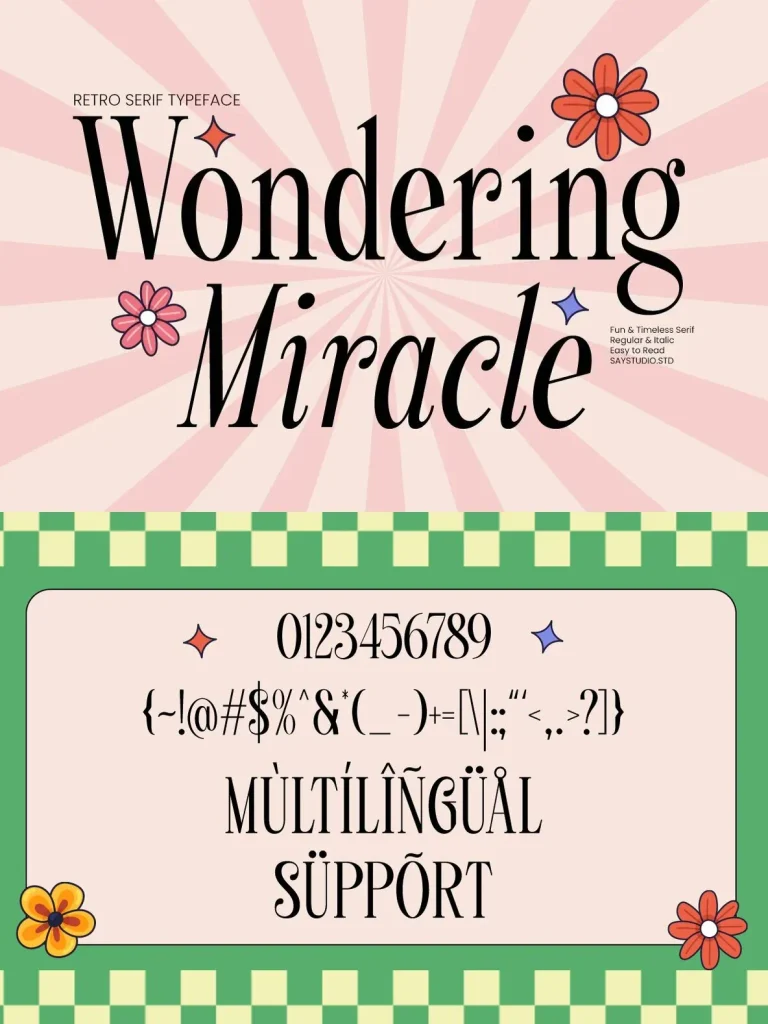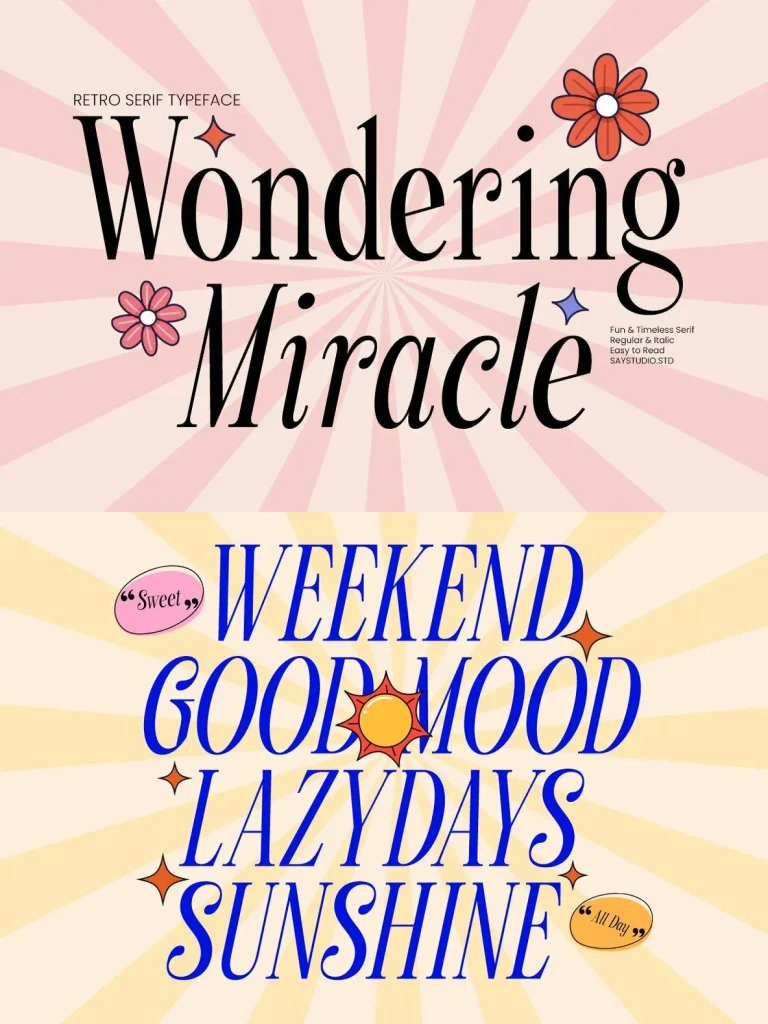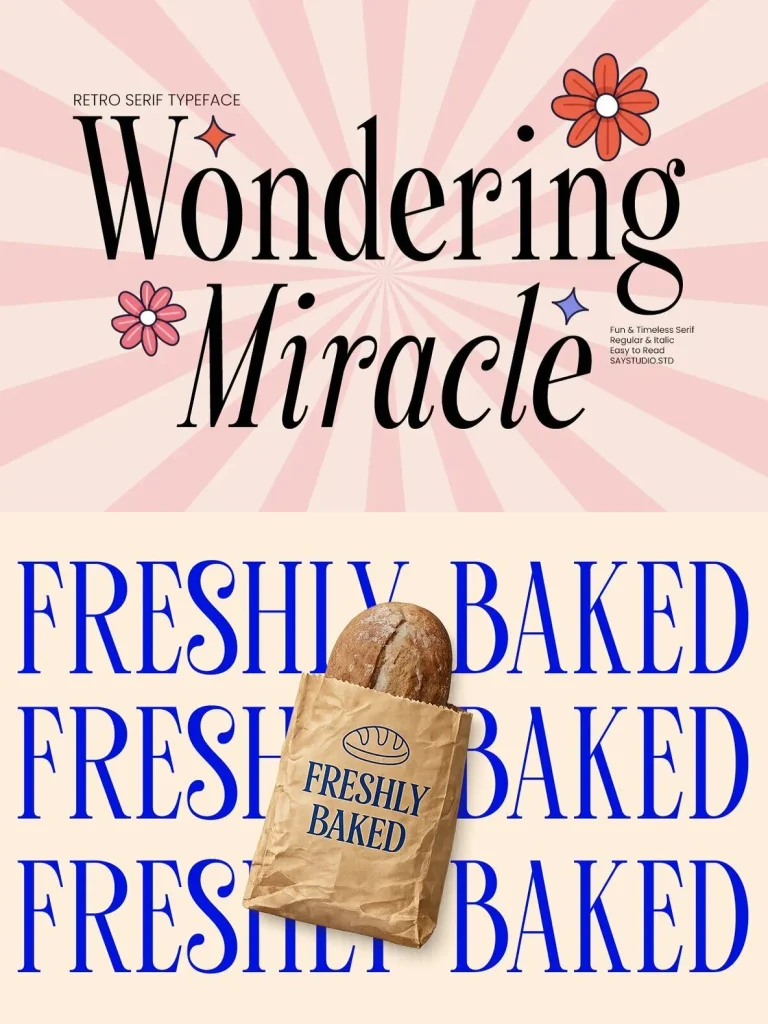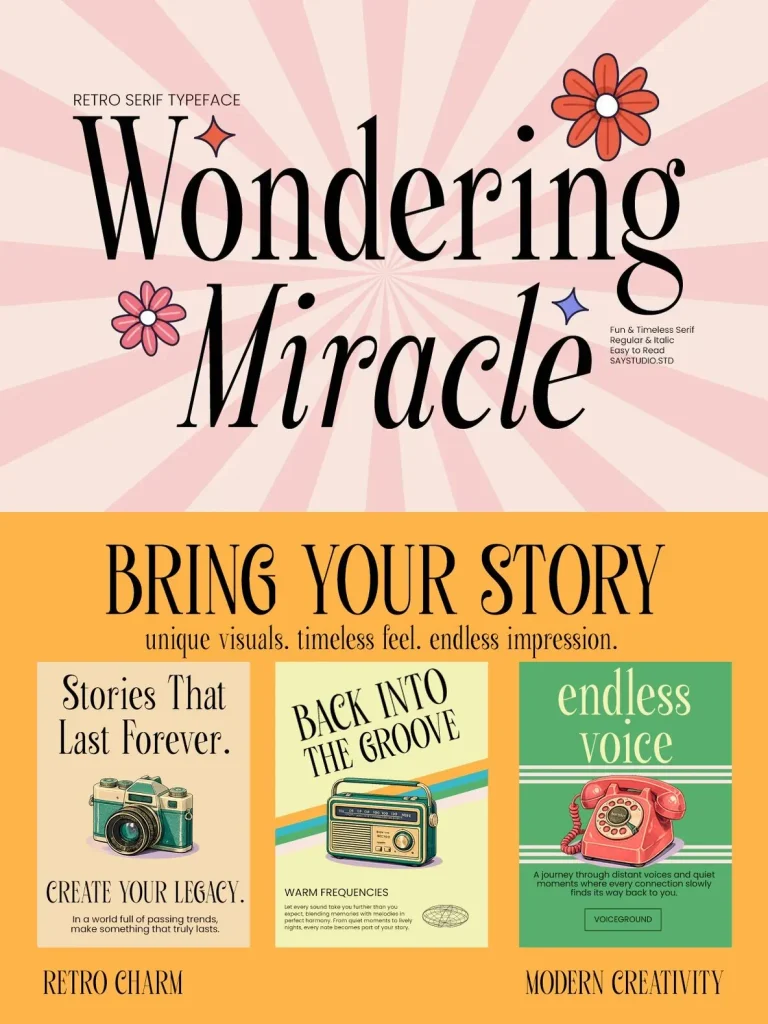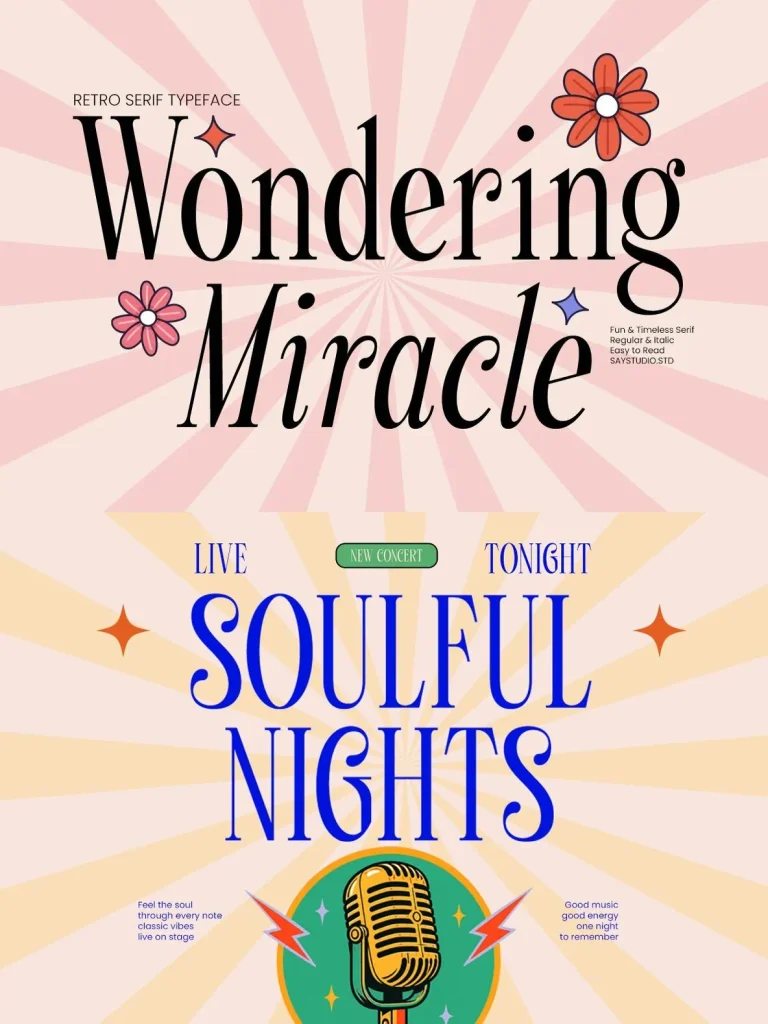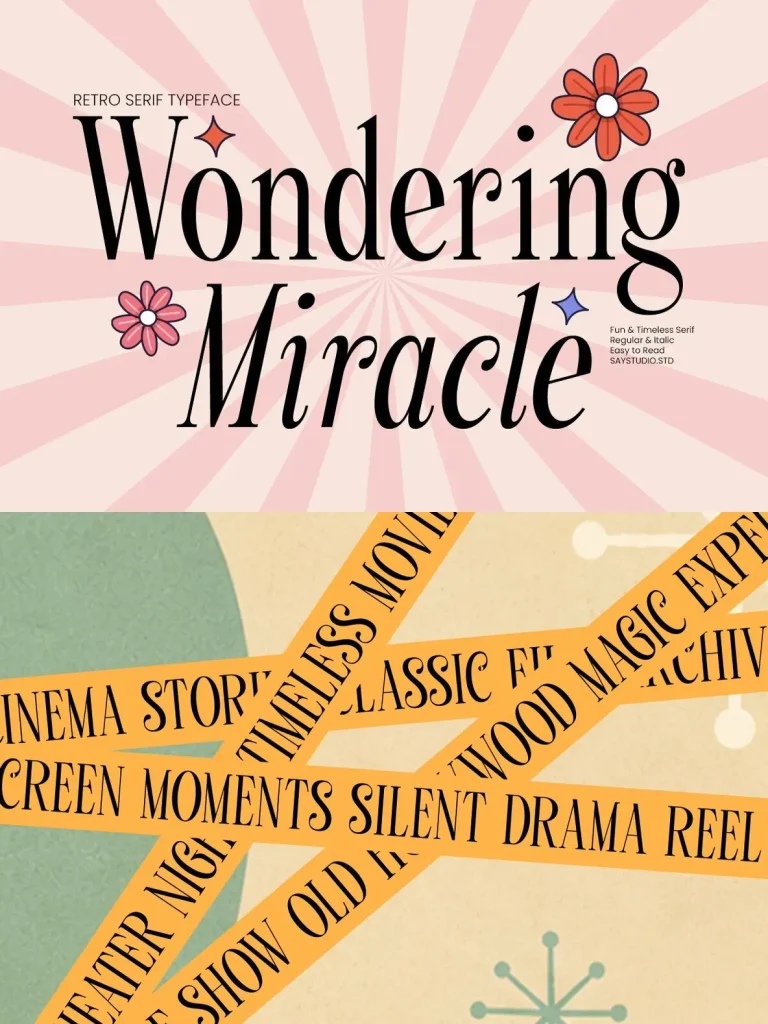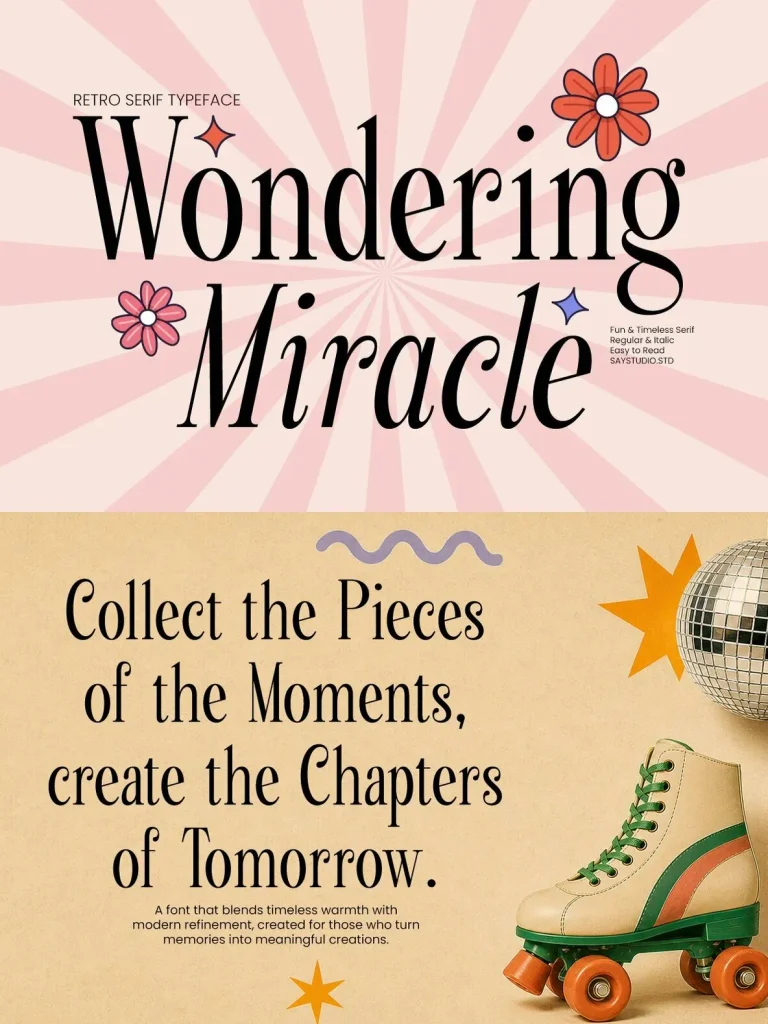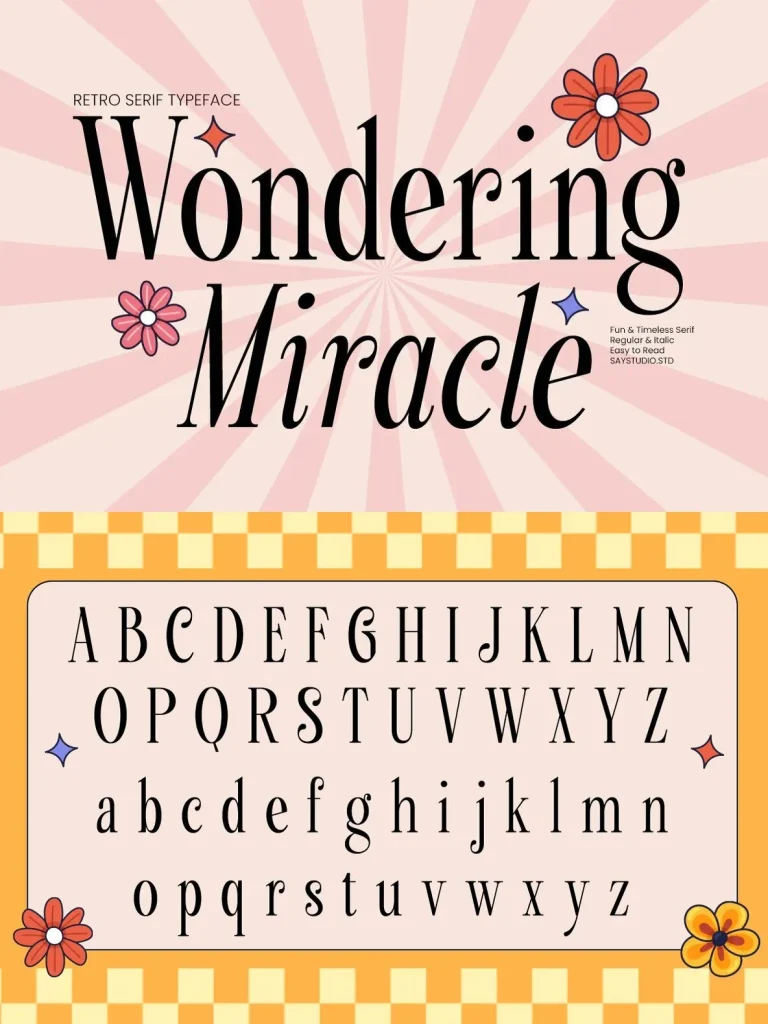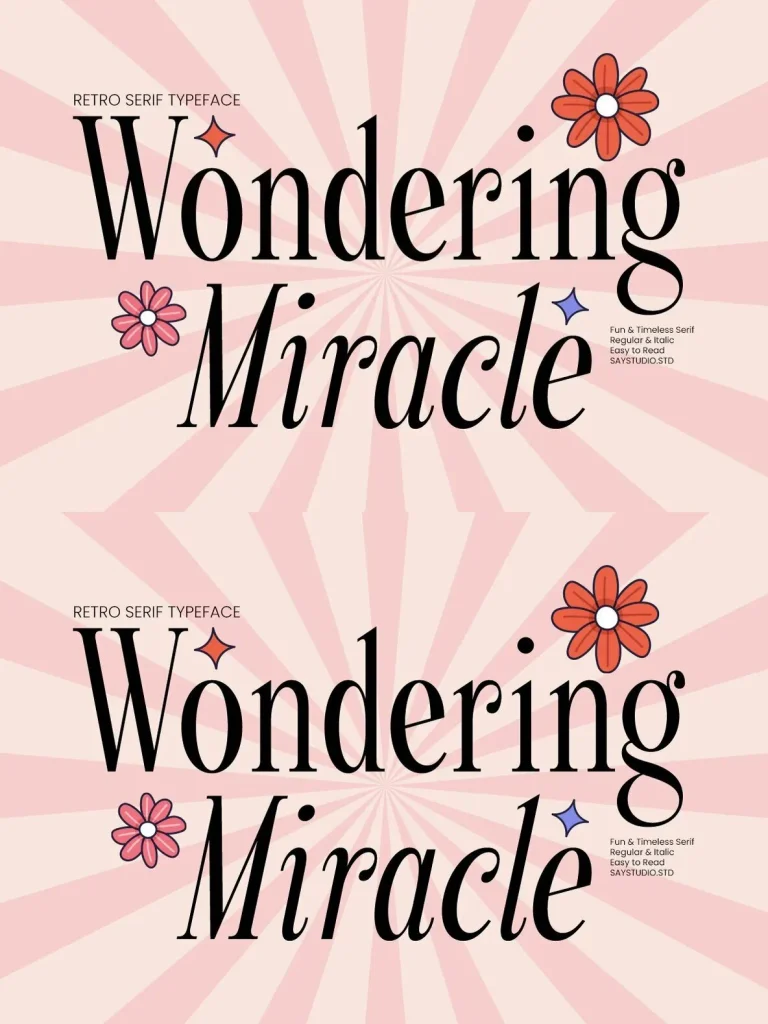
Wondering Miracle — Vintage Serif Warmth
Wondering Miracle is a fun retro serif typeface that blends timeless elegance with playful vintage charm. It features graceful high-contrast letterforms, stylish curves, and a nostalgic personality. The classic serif structure keeps the font highly readable while giving each composition a bold decorative presence.
This typeface suits branding, logos, editorial layouts, posters, packaging, magazine covers, product labels, invitations, beauty branding, social media content, and feminine creative projects. Wondering Miracle brings a balanced mix of sophistication and retro expression, making it a strong choice for vintage-inspired businesses as well as trendy modern brands that need clear character.
Created for designers who love elegant nostalgia, Wondering Miracle works across both print and digital projects. From boutique branding to stylish storytelling visuals, it helps designs feel memorable, charming, and timeless.